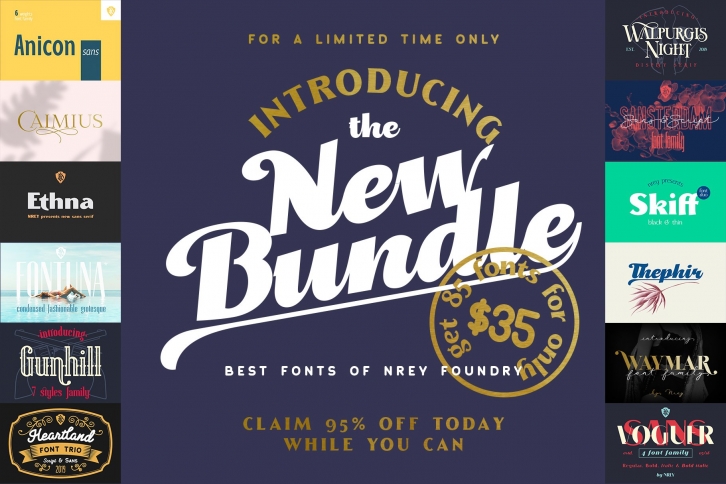
Introducing The New Bundle!!!
Featuring best fonts of NREY foundry. Total 85 fonts!
This spectacular deal provides you with a nice selection of serif, slab serif, sans serif & script fonts
so you’ll be 100% prepared for your next stylish and elegant design project.